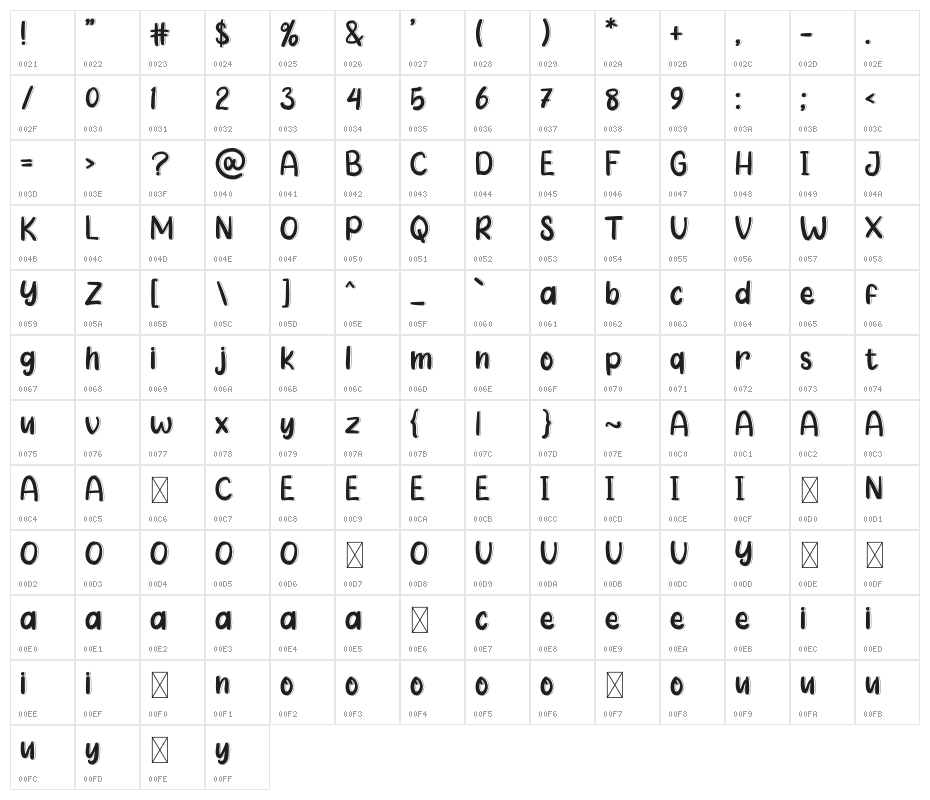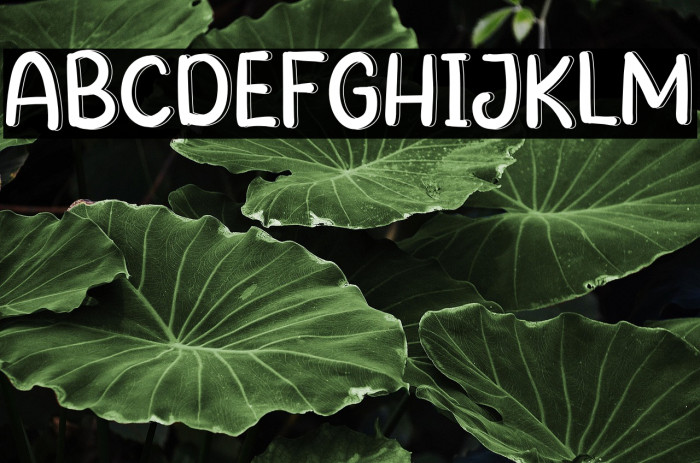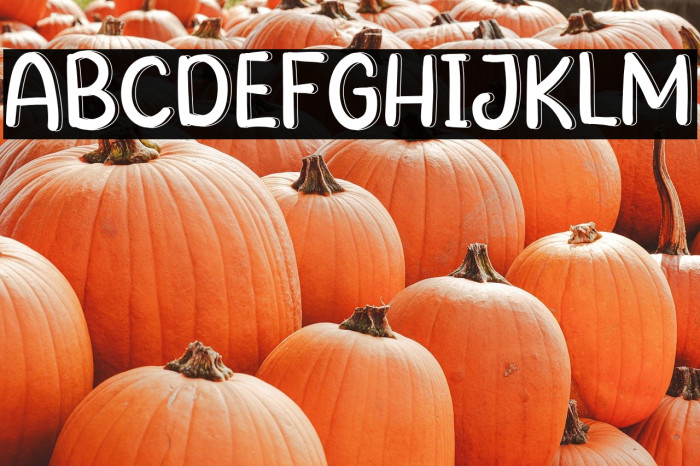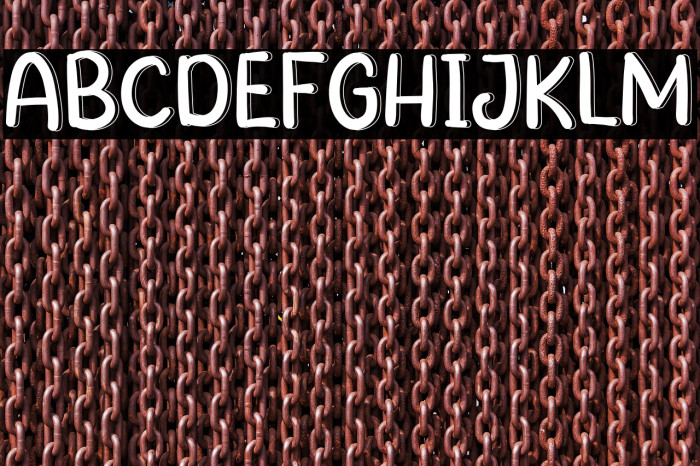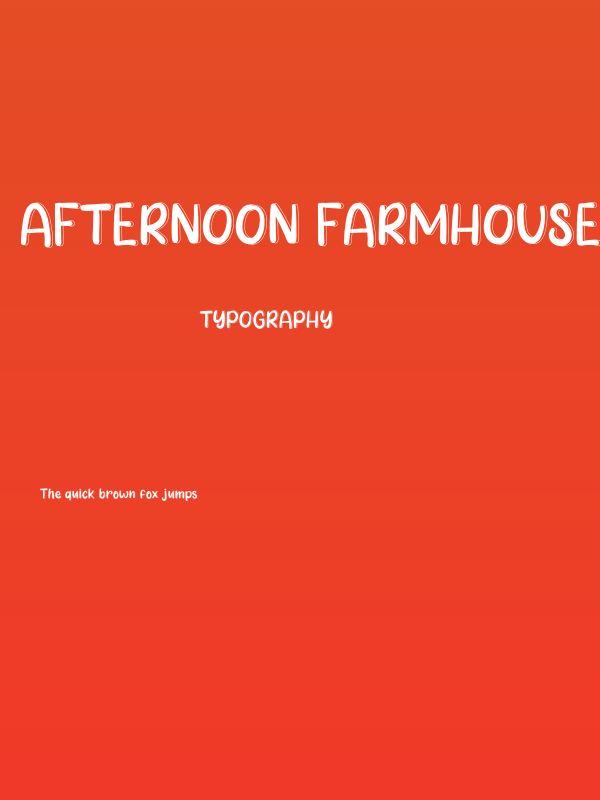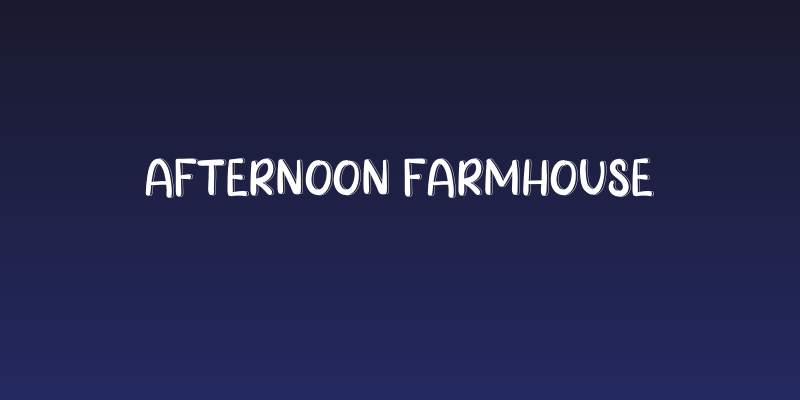
Afternoon Farmhouse Font
Afternoon Farmhouse Description
This font features a playful and bold handwritten style, characterized by its thick strokes and rounded edges. The letters have a casual, friendly appearance, with a slight slant that adds a dynamic feel. The uppercase and lowercase letters maintain a consistent style, with the lowercase letters being slightly smaller and more compact. The numerals are bold and easy to read, matching the overall aesthetic of the alphabet. Special characters are included, maintaining the same playful and bold style. This font is perfect for projects that require a touch of personality and warmth.
| Proposed Projects | Ideal for greeting cards, children's books, playful branding, and social media graphics. |